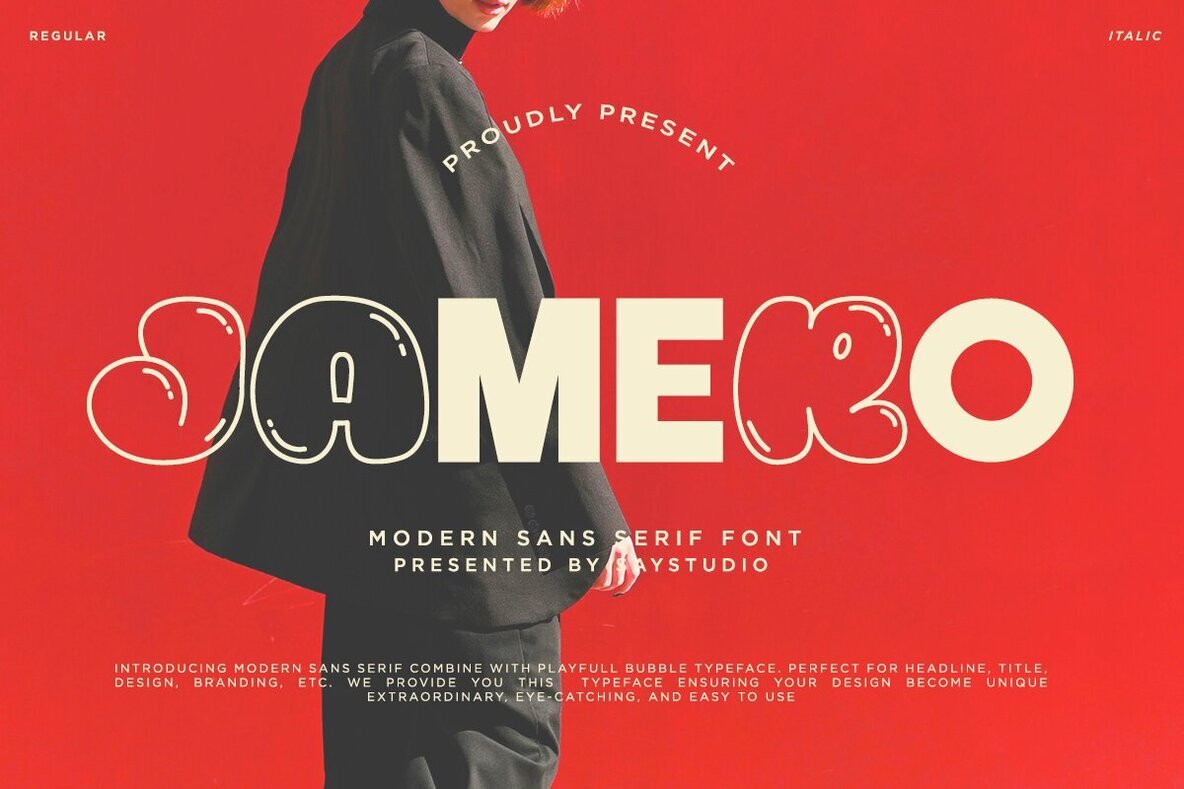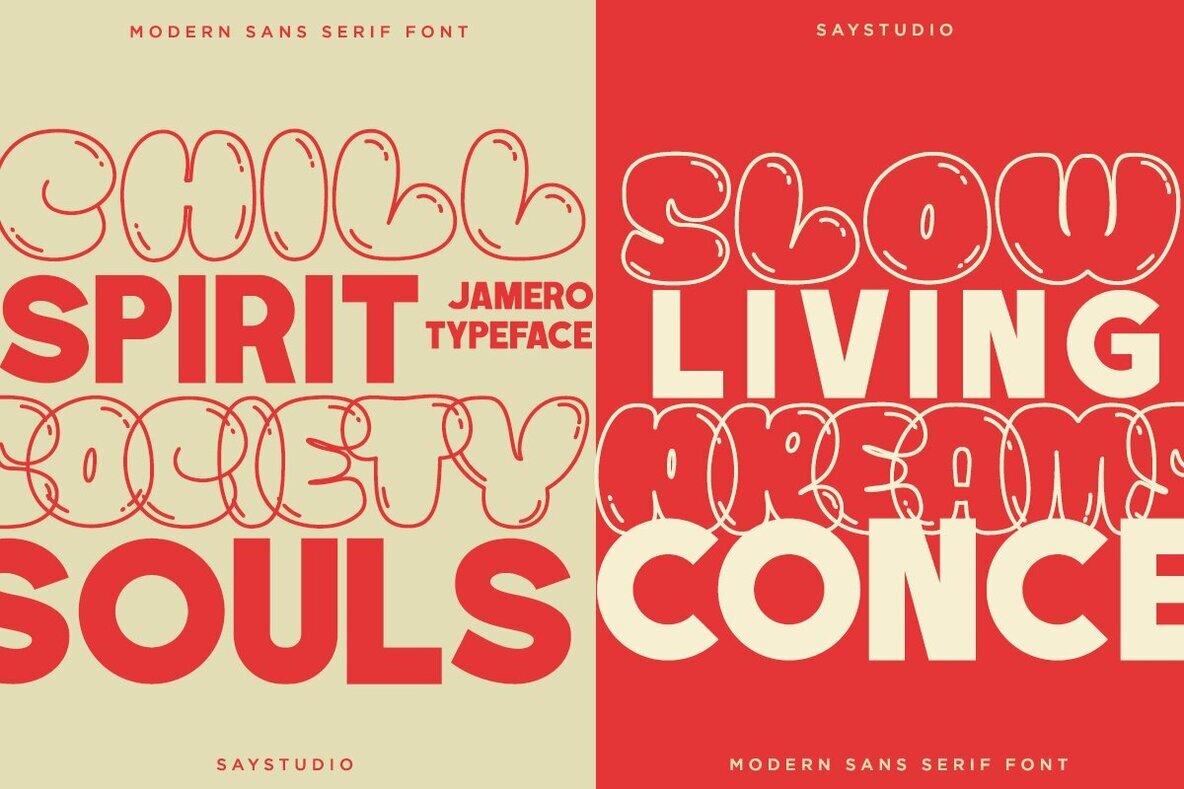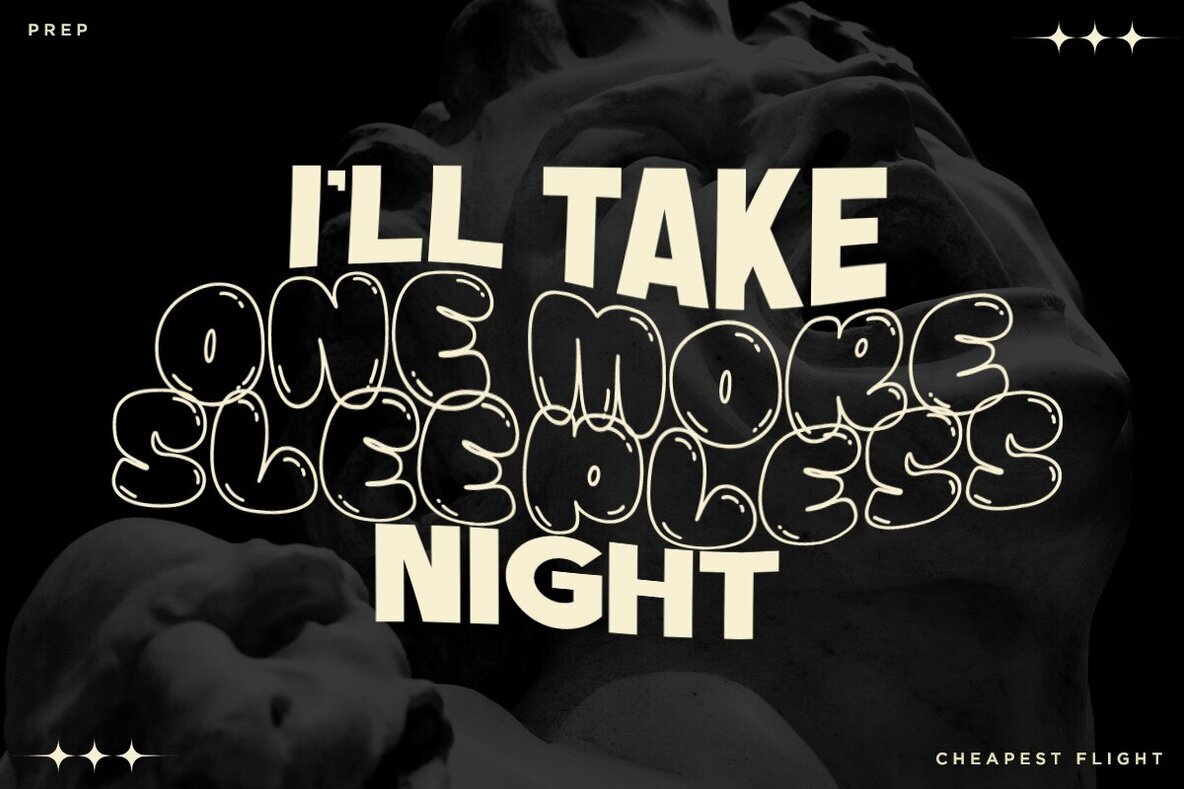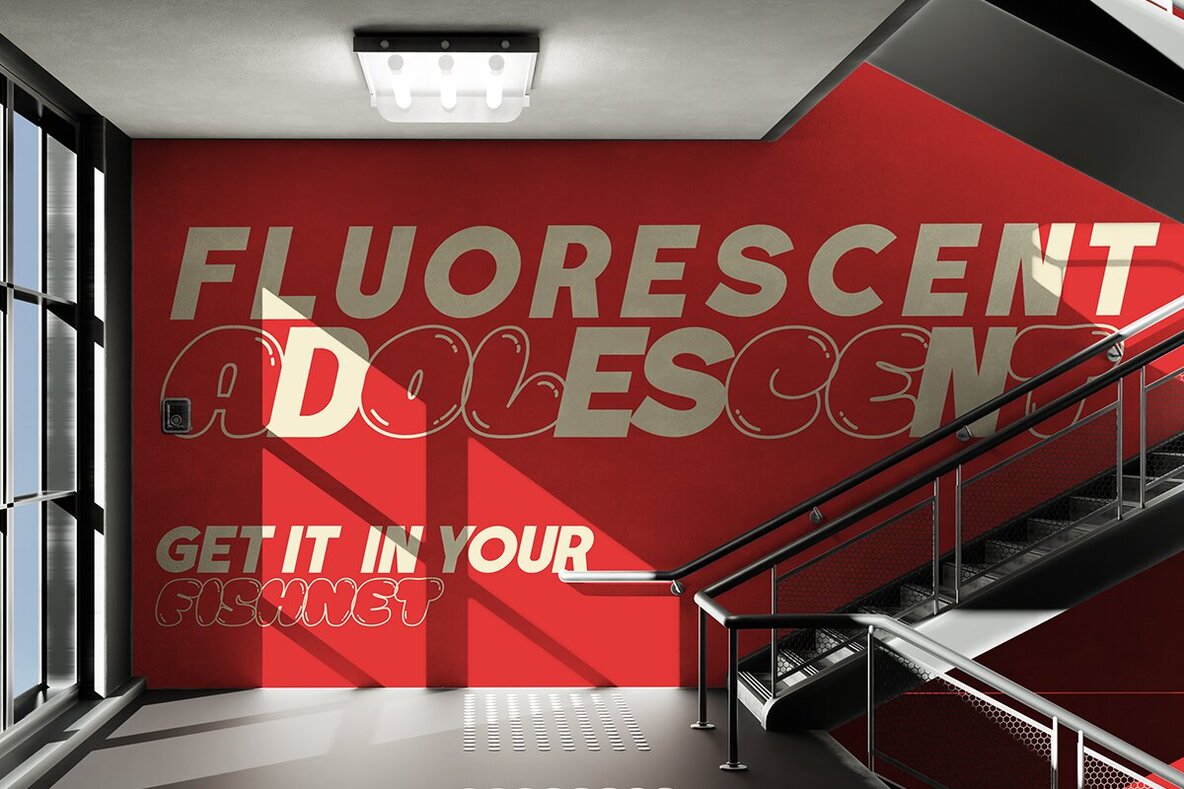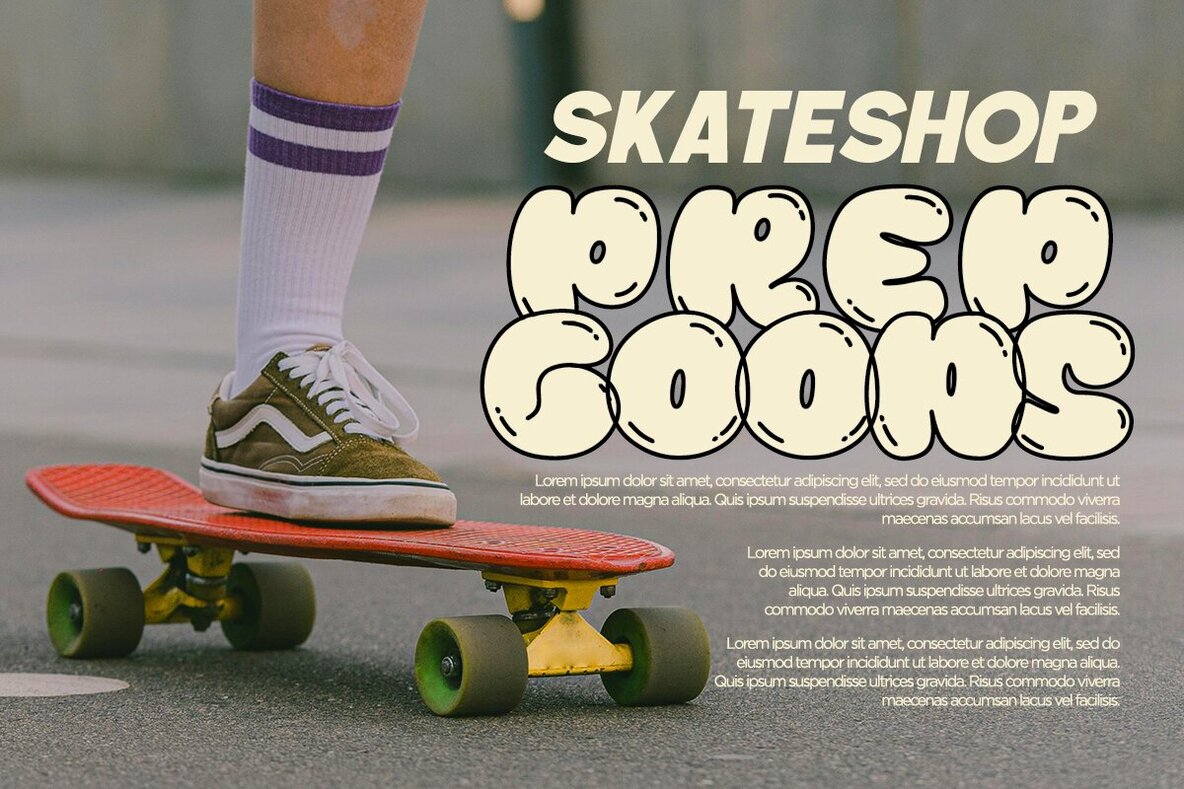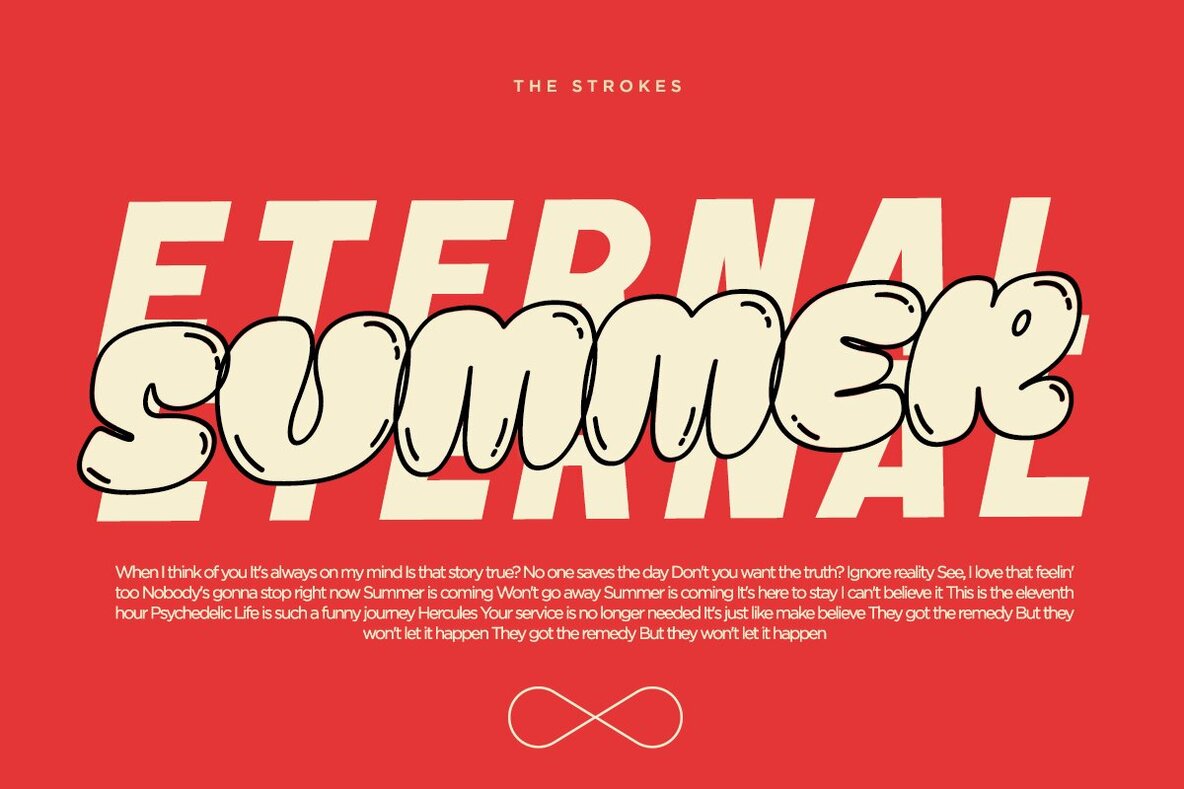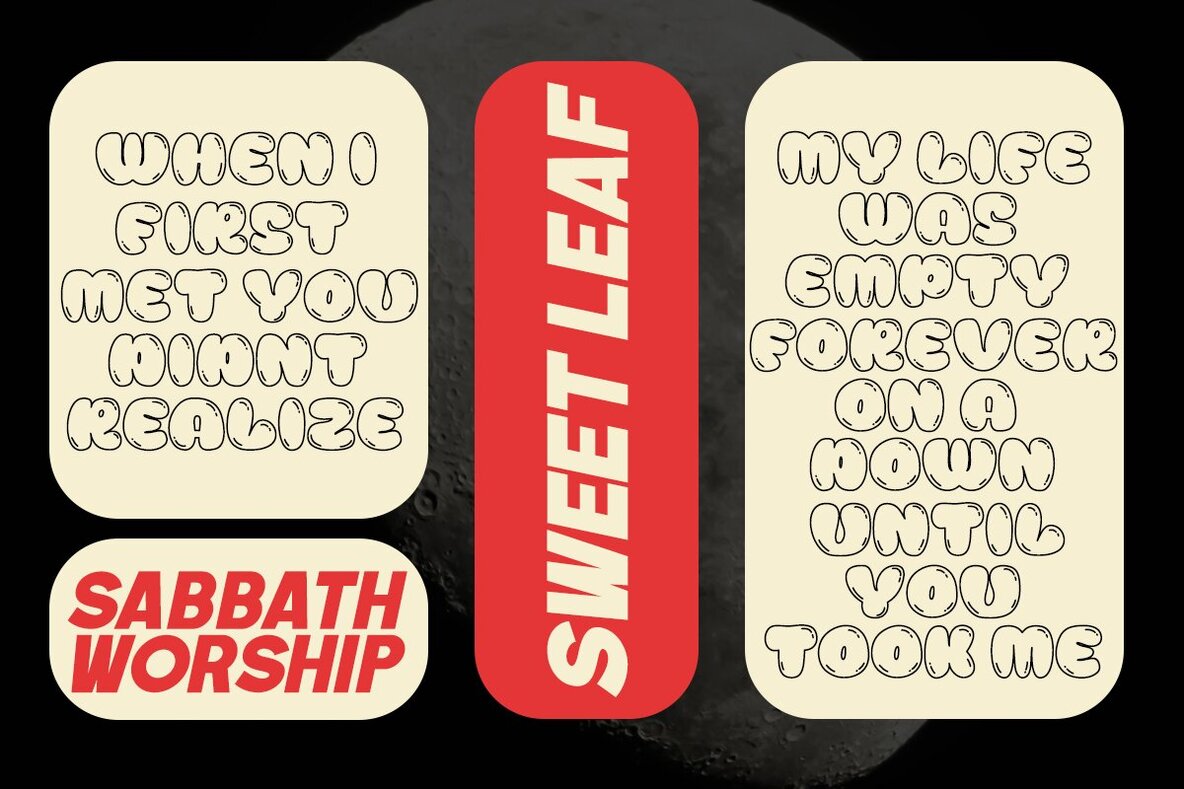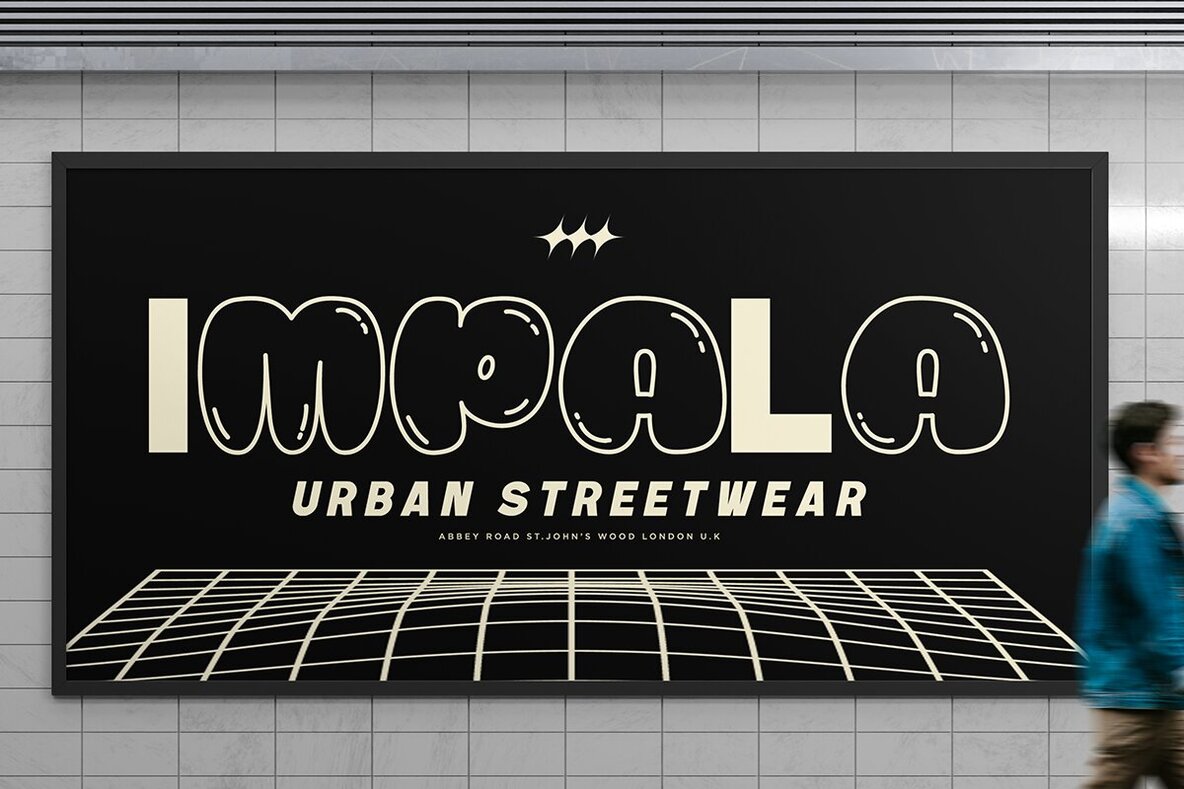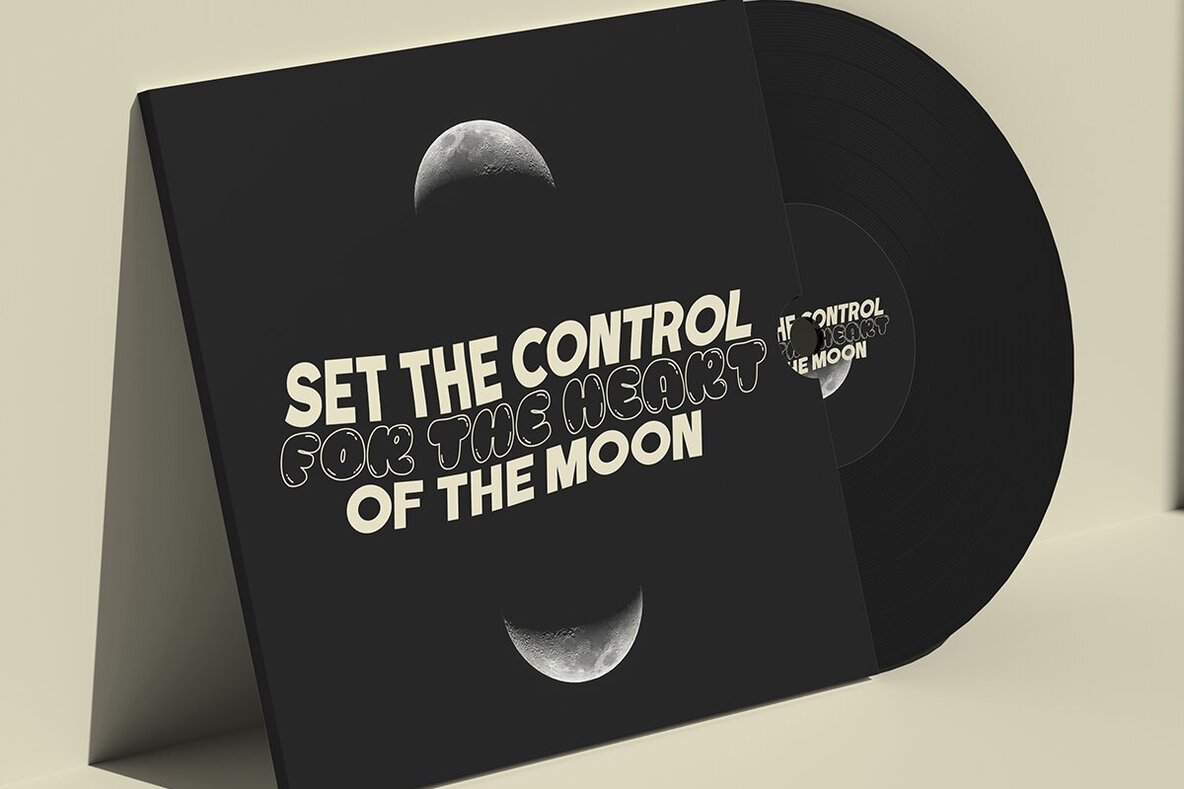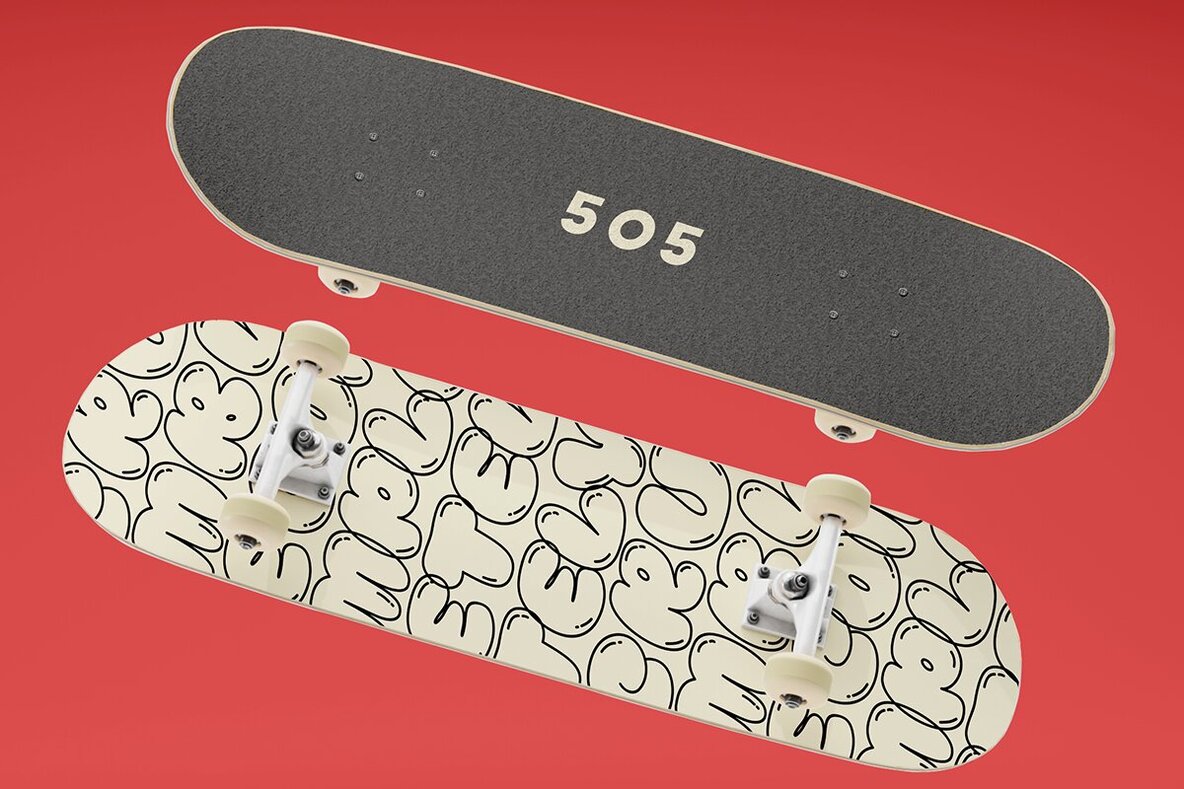
Jamero Font
Jamero is a striking blend of modern sans serif elegance and nostalgic bubble groove charm. This unique typeface is perfect for headlines, titles, children’s invitations, birthday party posters, playful packaging, and toy branding. It effortlessly injects joy and vibrancy into any project, ensuring your designs captivate with their distinct and eye-catching style.Jamero: A Playful Modern Display Font